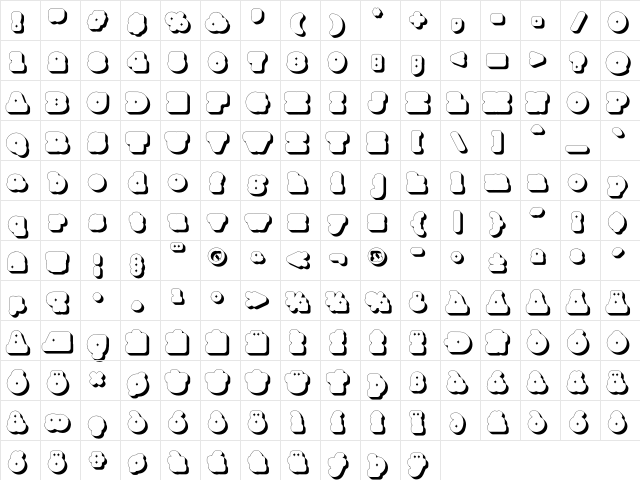
Mince Shadow Regular
Design Context for Mince Shadow Typeface
Mince Shadow is built around its visual character rather than neutral utility — its distinctive forms are designed to make an impression at display sizes.
Font Pairing: Pair with a clean neutral sans-serif for body copy to let Mince Shadow's character lead without overwhelming the composition.
Pro Tip: Treat Mince Shadow as the centrepiece of your typographic hierarchy. One strong heading set in a decorative face can carry an entire layout.